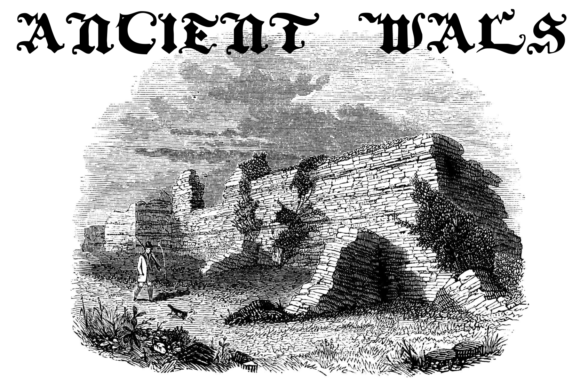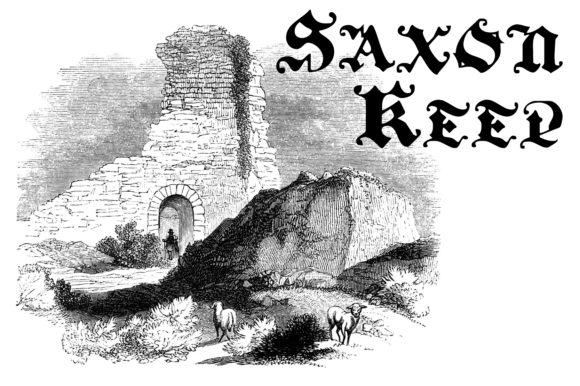
Unleash Your Creativity with Black Initial Text Font: A Grunge Blackletter Typeface
Are you tired of using the same old fonts in your designs? Do you want to add a touch of uniqueness and personality to your creations? Look no further than the Black Initial Text Font, a grunge blackletter typeface that’s sure to make your designs stand out. In this article, we’ll dive into the world of Black Initial Text Font, exploring its features, benefits, and uses, as well as provide tips and inspiration for designers and crafters.
The Black Initial Text Font: A Grunge Blackletter Typeface
The Black Initial Text Font is a grunge blackletter typeface that’s perfect for designers and crafters looking to add a touch of edginess to their work. With its unique and distressed design, this font is sure to grab attention and make your designs stand out. Whether you’re working on a logo, poster, or social media graphic, the Black Initial Text Font is a versatile choice that can be used in a variety of contexts.
Key Features of the Black Initial Text Font
So, what makes the Black Initial Text Font so special? Here are some of its key features:
- Unique and distressed design: The Black Initial Text Font has a one-of-a-kind grunge blackletter design that’s perfect for adding a touch of personality to your designs.
- High-quality and versatile: This font is designed to be used in a variety of contexts, from logos and posters to social media graphics and more.
- Easy to read: Despite its distressed design, the Black Initial Text Font is surprisingly easy to read, making it perfect for use in body text and headlines.
Benefits of Using the Black Initial Text Font
So, why should you choose the Black Initial Text Font for your next design project? Here are just a few benefits:
- Adds personality to your designs: With its unique and distressed design, the Black Initial Text Font is sure to add a touch of personality to your designs and make them stand out.
- Perfect for grunge and vintage designs: If you’re going for a grunge or vintage look, the Black Initial Text Font is a perfect choice.
- Great for headlines and titles: The Black Initial Text Font is perfect for use in headlines and titles, where its unique design can really shine.
Tips for Using the Black Initial Text Font
Here are a few tips for getting the most out of the Black Initial Text Font:
- Use it sparingly: Because of its distressed design, the Black Initial Text Font can be overwhelming if used too much. Use it sparingly to add emphasis and personality to your designs.
- Pair it with a clean font: For body text, pair the Black Initial Text Font with a clean and simple font to create contrast and make your designs more readable.
- Experiment with colors: The Black Initial Text Font looks great in a variety of colors, so don’t be afraid to experiment and find the perfect hue for your design.
Need some inspiration for your next design project? Here are a few ideas for using the Black Initial Text Font:
- Create a grunge-style poster: Use the Black Initial Text Font to create a bold and eye-catching poster with a grunge vibe.
- Design a vintage-inspired logo: The Black Initial Text Font is perfect for creating a vintage-inspired logo that’s sure to stand out.
- Make a statement with a social media graphic: Use the Black Initial Text Font to create a bold and eye-catching social media graphic that’s sure to grab attention.
The Black Initial Text Font is a grunge blackletter typeface that’s perfect for designers and crafters looking to add a touch of uniqueness and personality to their work. With its unique and distressed design, this font is sure to make your designs stand out and grab attention. Whether you’re working on a logo, poster, or social media graphic, the Black Initial Text Font is a versatile choice that’s sure to inspire.